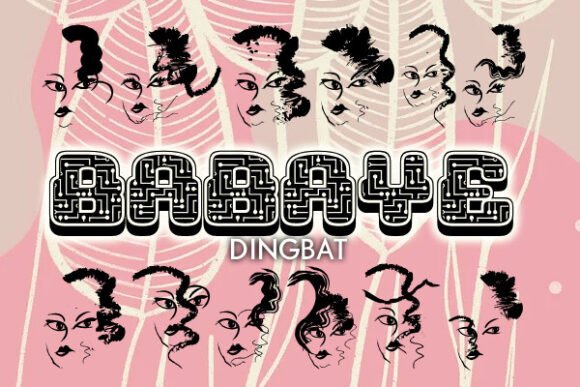
With its unique blend of elegance and playfulness, Babaye Font instantly elevated my design and exceeded my client’s expectations. If you’re a designer, crafter, or creative hobbyist looking for a font that will make your designs shine, you’re in the right place. In this article, we’ll dive into the world of Babaye Font and explore its features, uses, and alternatives.
An Honest Review of Babaye Font
- ✨ Unique and stylish dingbat design that adds a touch of sophistication to any project
- ✅ Highly versatile and suitable for a wide range of applications, from flyers to t-shirts and posters
- 🔥 Excellent for creating eye-catching graphics and attention-grabbing headlines
- 🤔 Limited character set compared to some other fonts, which may limit its use for longer texts
- ⚠️ May not be suitable for very small font sizes, as some details may get lost
The Story Behind Babaye Font
While the true story behind Babaye Font remains a mystery, it’s easy to imagine that it was created by a designer who wanted to push the boundaries of traditional typography. Perhaps they were inspired by the world of dingbats and wanted to create a font that would bring a touch of elegance and sophistication to any design. Whatever the inspiration, Babaye Font is undoubtedly a unique and valuable addition to any designer’s toolkit.
| What type of projects is Babaye Font best suited for? | Babaye Font is perfect for creating eye-catching graphics, flyers, t-shirts, posters, and any other design that requires a stylish and modern touch. |
| Is Babaye Font easy to read? | Babaye Font is a dingbat font, which means it’s primarily designed for use in headlines and titles rather than long blocks of text. While it’s certainly legible, it may not be the best choice for body text. |